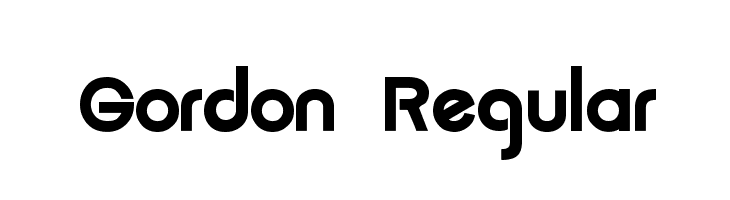
A bold, playful font with rounded edges and a chunky appearance.
A bold, rounded font with a playful and friendly style.
A bold, playful font with rounded edges and a slight tilt.
A bold, playful font with rounded edges and a chunky appearance.